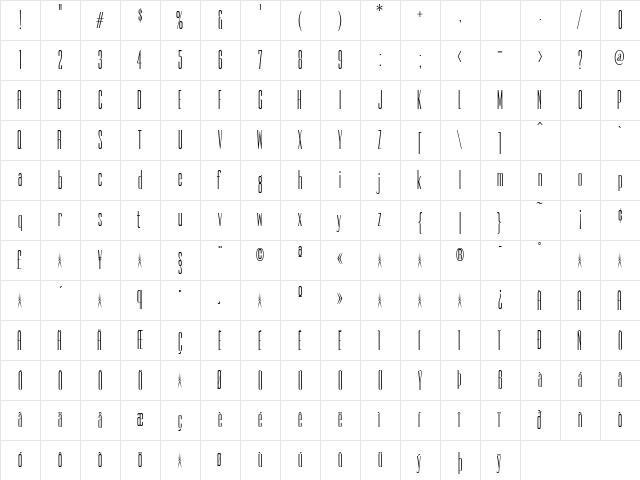
BureauEmpire Regular
Design Context for BureauEmpire Typeface
BureauEmpire offers clean, dependable letterforms without strong stylistic allegiance, making it a practical choice for designers who need flexibility.